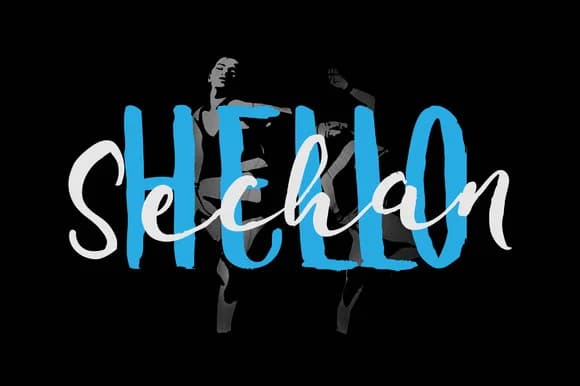
Sechan by Fauzi is a handwritten script that merges organic, flowing letterforms with the readability that contemporary design work demands. The typeface captures the authentic warmth of genuine hand-drawn letterwork while maintaining the clarity and consistency needed across both digital and print mediums. Each character reflects careful craftsmanship, delivering letterforms that feel genuinely personal without compromising legibility or professional polish.
This script thrives in applications like wedding invitation suites, personalized greeting card collections, and boutique product packaging design. Those working on vinyl decal projects, custom apparel branding, and sophisticated stationery systems will find that Sechan's clean letterforms and consistent stroke weight deliver reliable results whether you're scaling for headlines or using it throughout body text. The typeface provides comprehensive character coverage for most creative work, supporting Latin alphabets and standard punctuation marks needed for publication work. It works equally well for small business ventures and large-scale branding initiatives.
Sechan brings handmade character to editorial layouts, social media content, packaging design, and indie business branding without sacrificing polish or professionalism. Whether you're developing a cohesive brand identity for a startup or adding personality to individual projects, this script serves as a versatile tool for designers seeking warmth paired with substance. Find Sechan on Creative Fabrica to bring authentic handmade character to your next project.
Sechan Font is a script font that shines as a display or heading face. Pair it with a clean sans-serif or serif font for body text — the contrast creates a clear hierarchy while the two styles stay balanced and easy to read.
Sechan Font